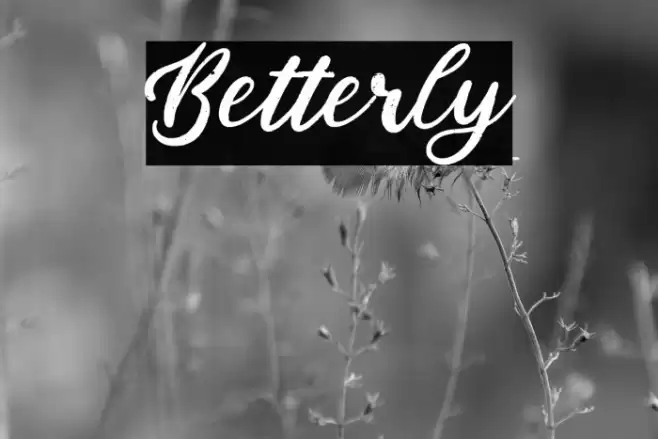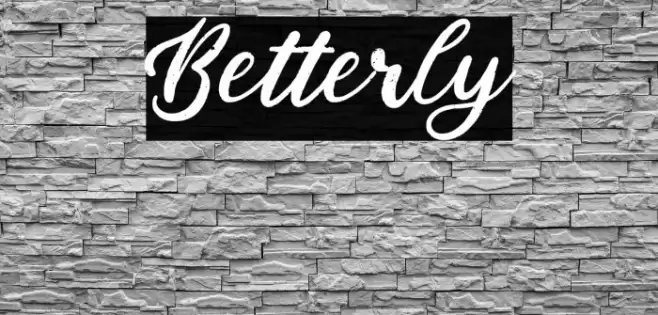
Betterly Font
Betterly Description
This font exudes a lively and dynamic energy, characterized by its fluid, cursive script style. The strokes are bold and expressive, with a slight texture that adds a handcrafted feel. Each letter seamlessly connects to the next, creating a harmonious flow that is both elegant and playful. The uppercase letters are slightly more ornate, while the lowercase letters maintain a consistent rhythm. Numbers and special characters follow the same stylistic cues, ensuring a cohesive appearance across all elements. This font is perfect for projects that require a personal touch, such as invitations, greeting cards, or branding materials.
A bold, cursive script font with a textured, handcrafted feel from Regular fonts.
- Proposed Projects: Ideal for invitations, greeting cards, branding, and personal projects.
- Use Case: Logos, Headlines, Invitations